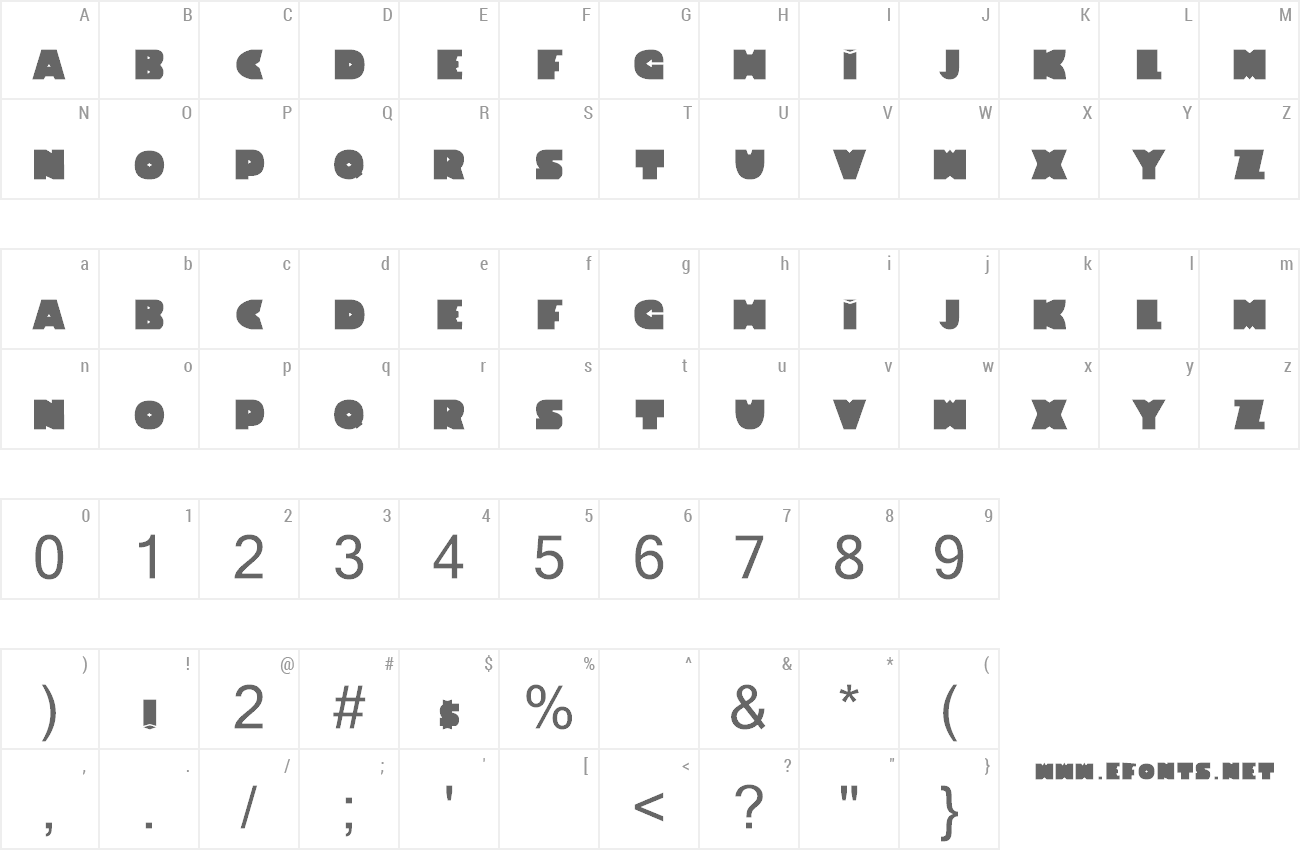
| Font name: | Th!ck B!tch |
| Author: | Marty Bampton |
| Note by Marty Bampton | |
| This is a thinker version of San Serif font with tweeks made to the curning |